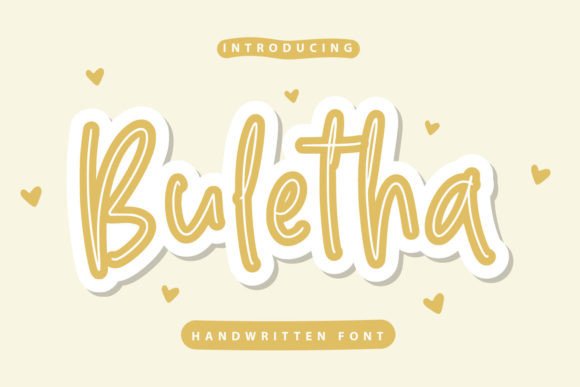
**Introducing Buletha: The Font of Enchantment for Your Special Day**
Step into the captivating world of Buletha, a script font that exudes charm and elegance. Its whimsical curves dance across the page like a melody of joy, inviting you to create enchanting designs that will leave a lasting impression.
**Crafted for Weddings with a Touch of Magic**
Buletha was meticulously designed to be the perfect match for your wedding stationery, invitations, and all the elements that will adorn your special day. Its delicate strokes and playful personality will effortlessly capture the magic and romance of this momentous occasion.
**Beyond Weddings: A Font for Every Occasion**
While Buletha may have been born to celebrate weddings, its versatility knows no bounds. From branding and logos to social media posts and crafty DIY projects, this font will add a touch of enchantment to every creation you bring to life.
**Unleash Your Creativity with Buletha**
Whether you're a seasoned designer or just starting your creative journey, Buletha empowers you to express your individuality with ease. Its friendly feel and effortless flow will inspire you to create designs that are as unique as your own imagination.
**Indulge in the Delightful Details**
Every letter of Buletha is a work of art, meticulously crafted to create a font that's both captivating and easy to read. Its subtle imperfections add a touch of charm, reminding you that even the most formal occasions can be filled with joy and laughter.